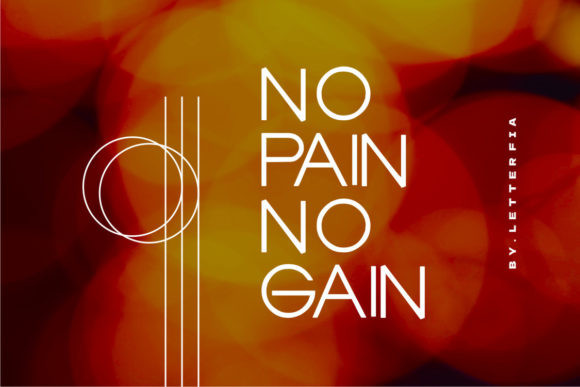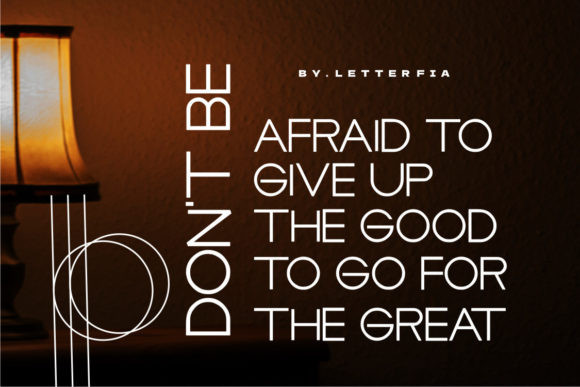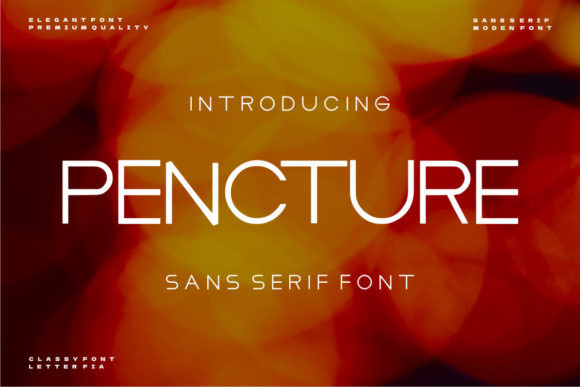
Pencture Font
Pencture is an elegant, yet thin lettered sans serif font. It has a modern look which can be used for logos, branding, invitations, stationery, wedding designs, social media posts, and more.